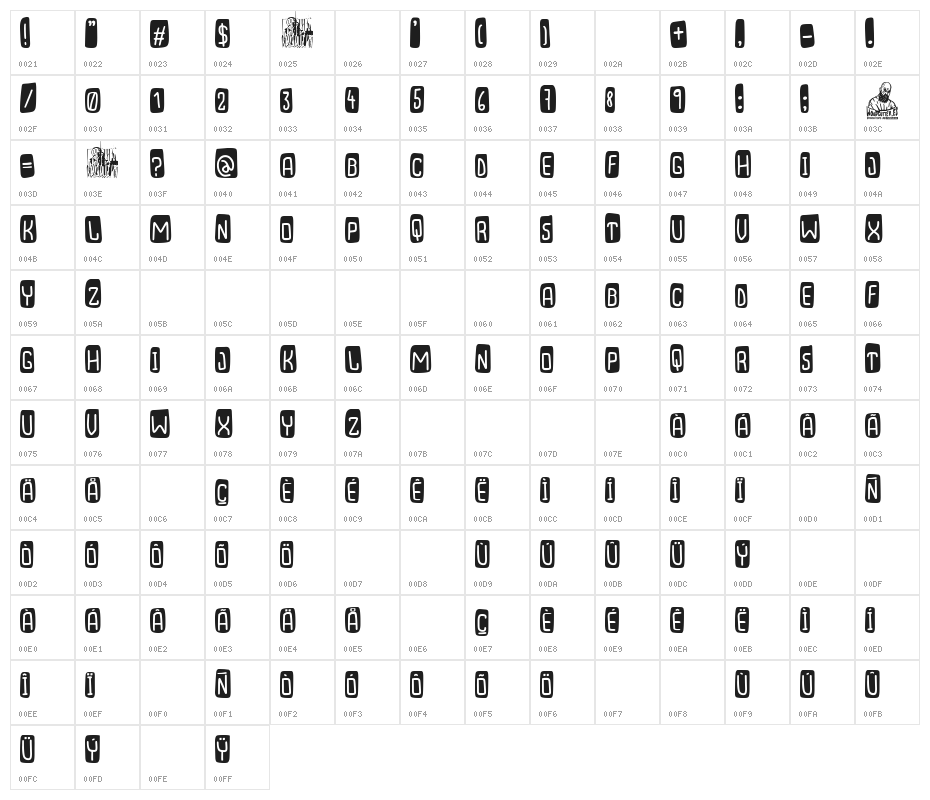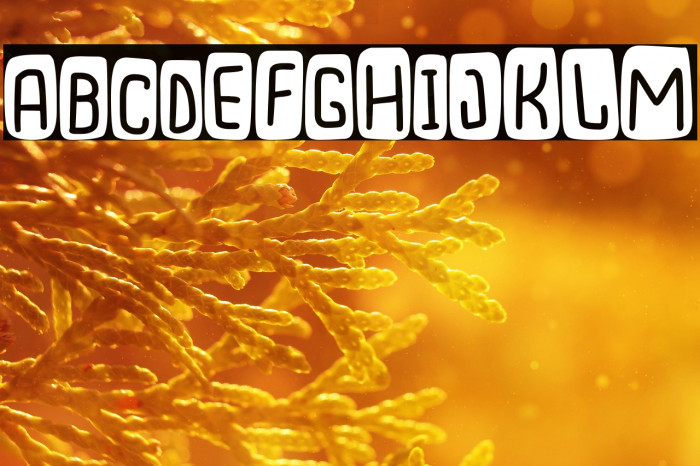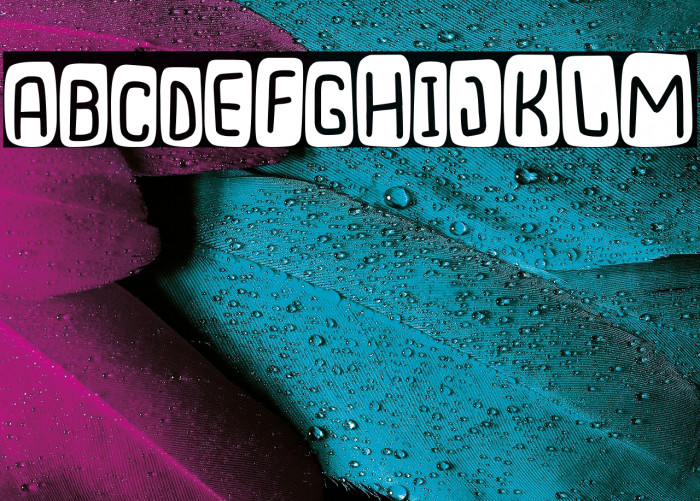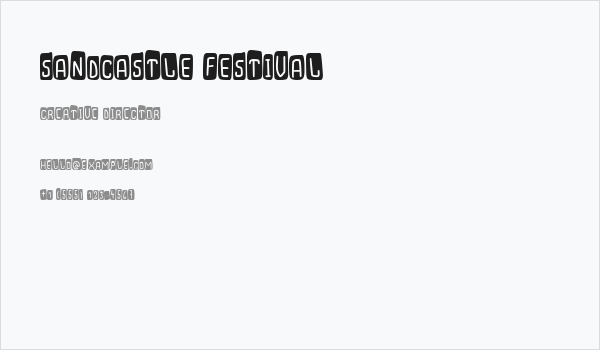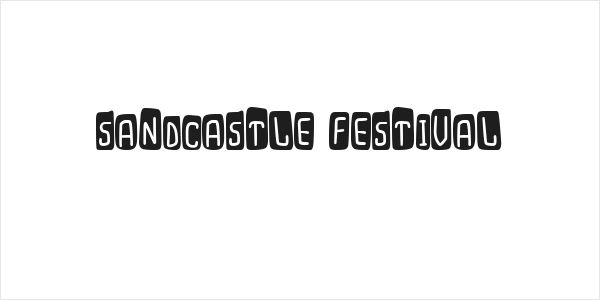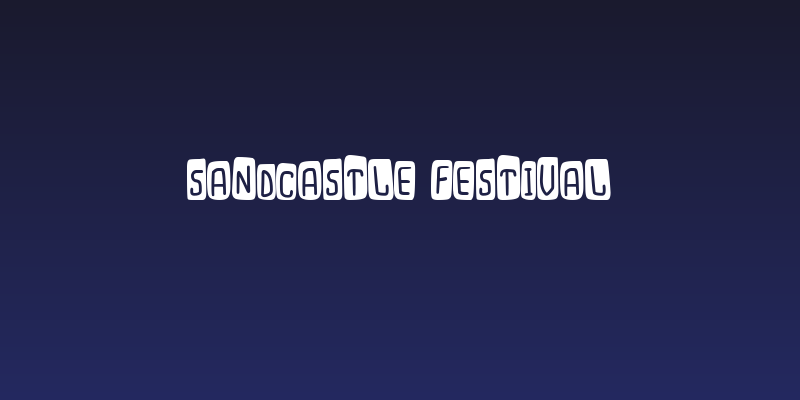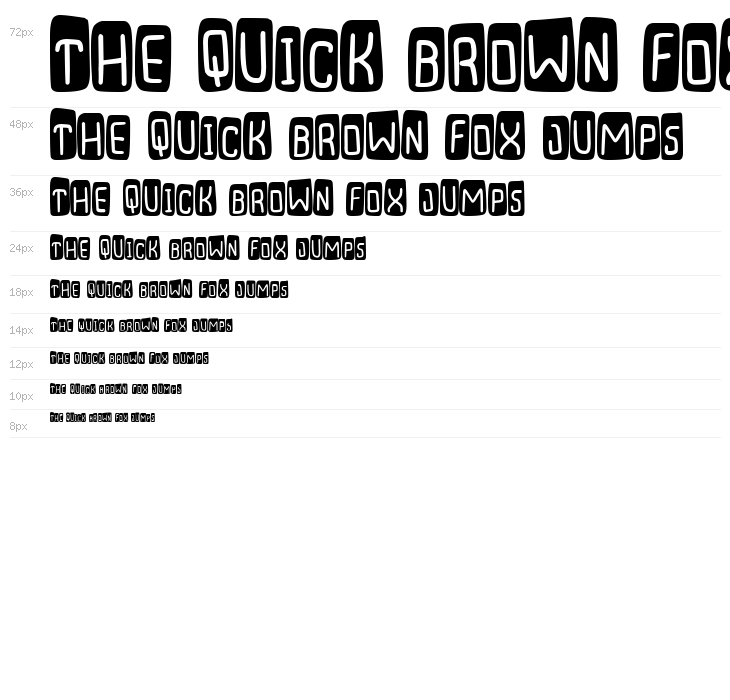
Sandcastle Festival Font
This playful and bold font features characters enclosed in rounded rectangular shapes, giving it a unique and eye-catching appearance. The letters are uppercase and lowercase, with a consistent thickness that creates a strong visual impact. The numbers and special characters follow the same design, maintaining uniformity across the set. The font's style is reminiscent of hand-drawn or cartoon-like aesthetics, making it ideal for creative and informal projects. Its distinct look is perfect for capturing attention and adding a fun, whimsical touch to any design.
Overall StylePlayful, Whimsical
Proposed ProjectsPerfect for children's book covers, playful posters, event flyers, and branding for creative businesses.